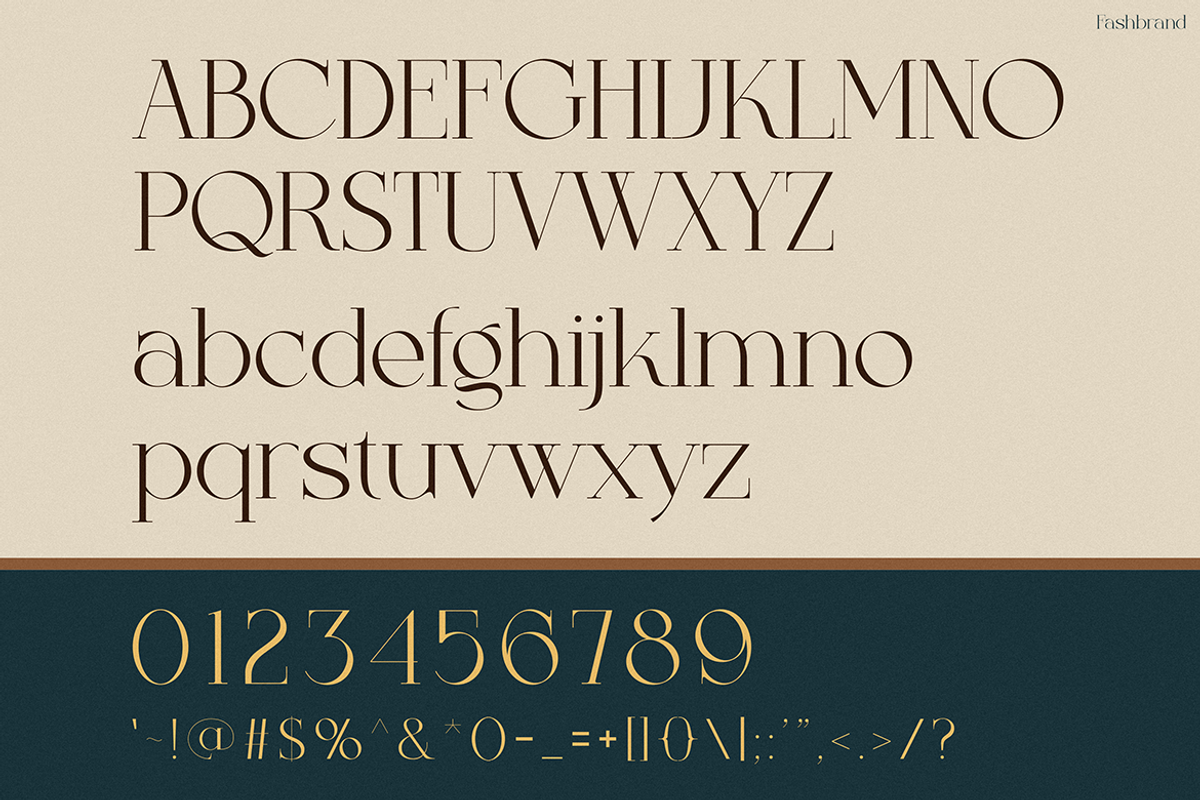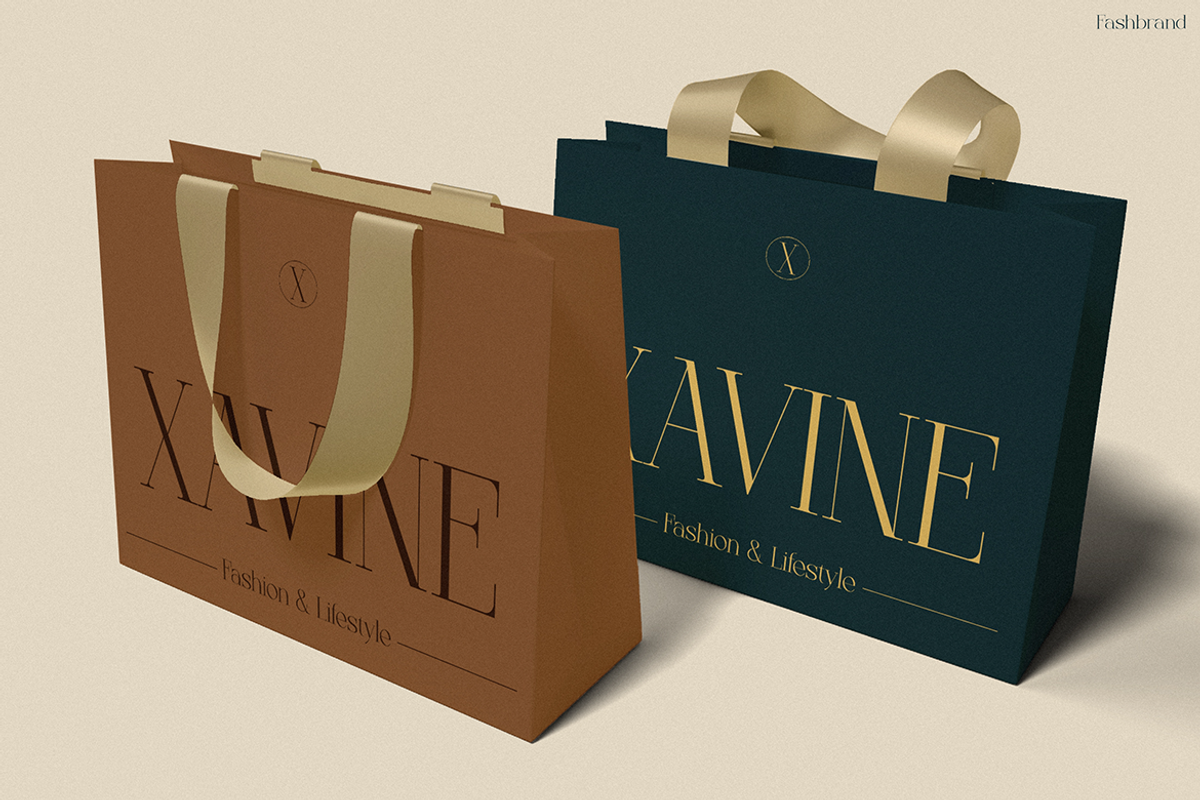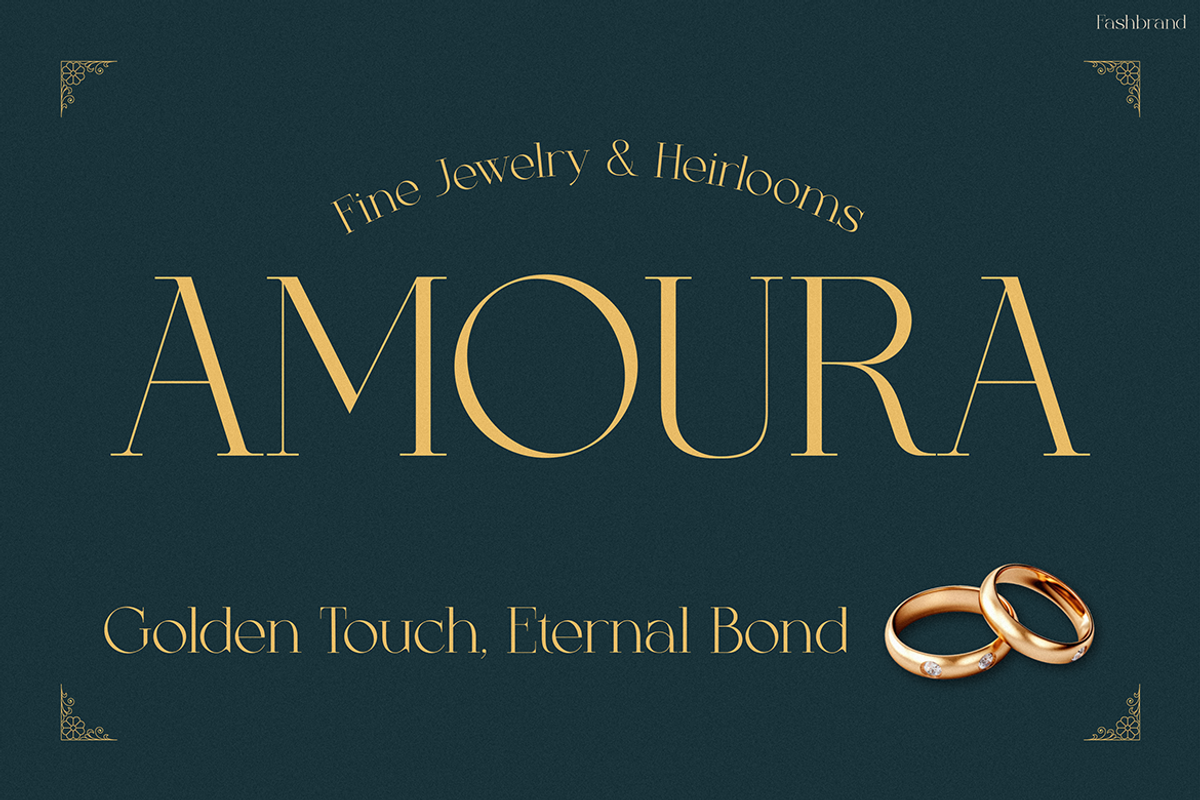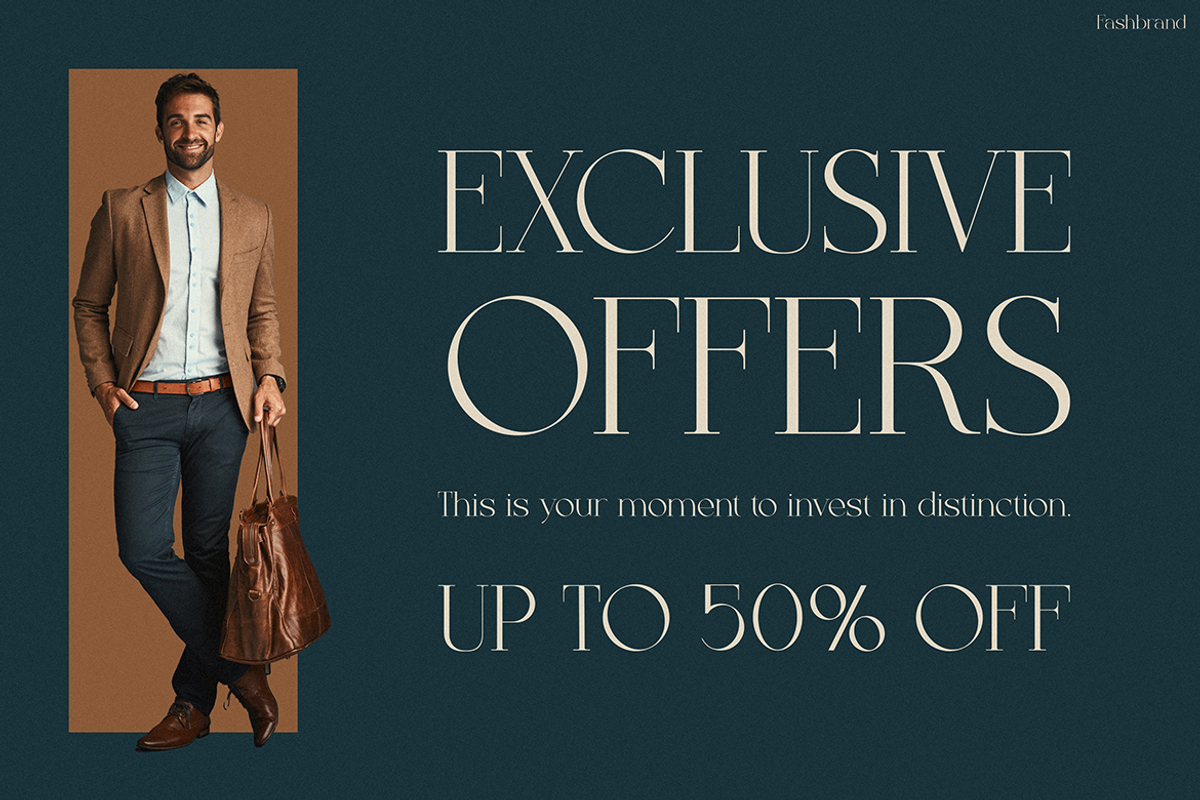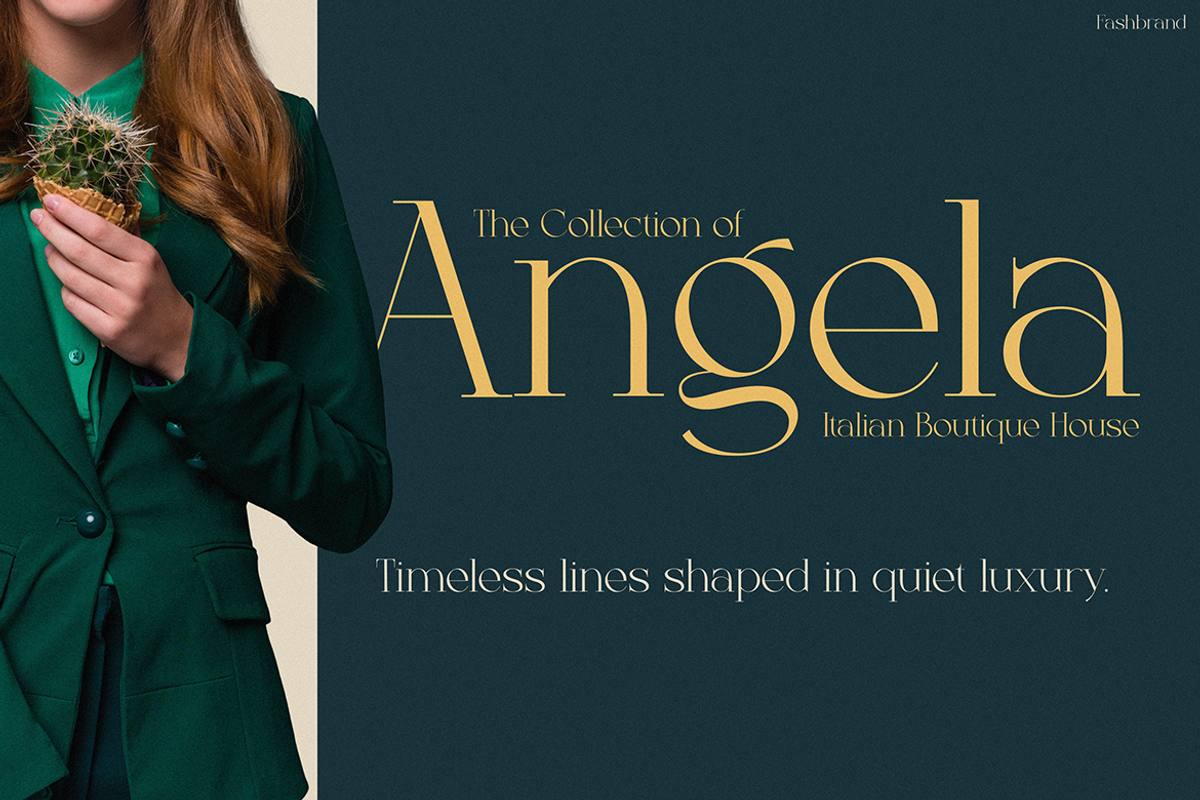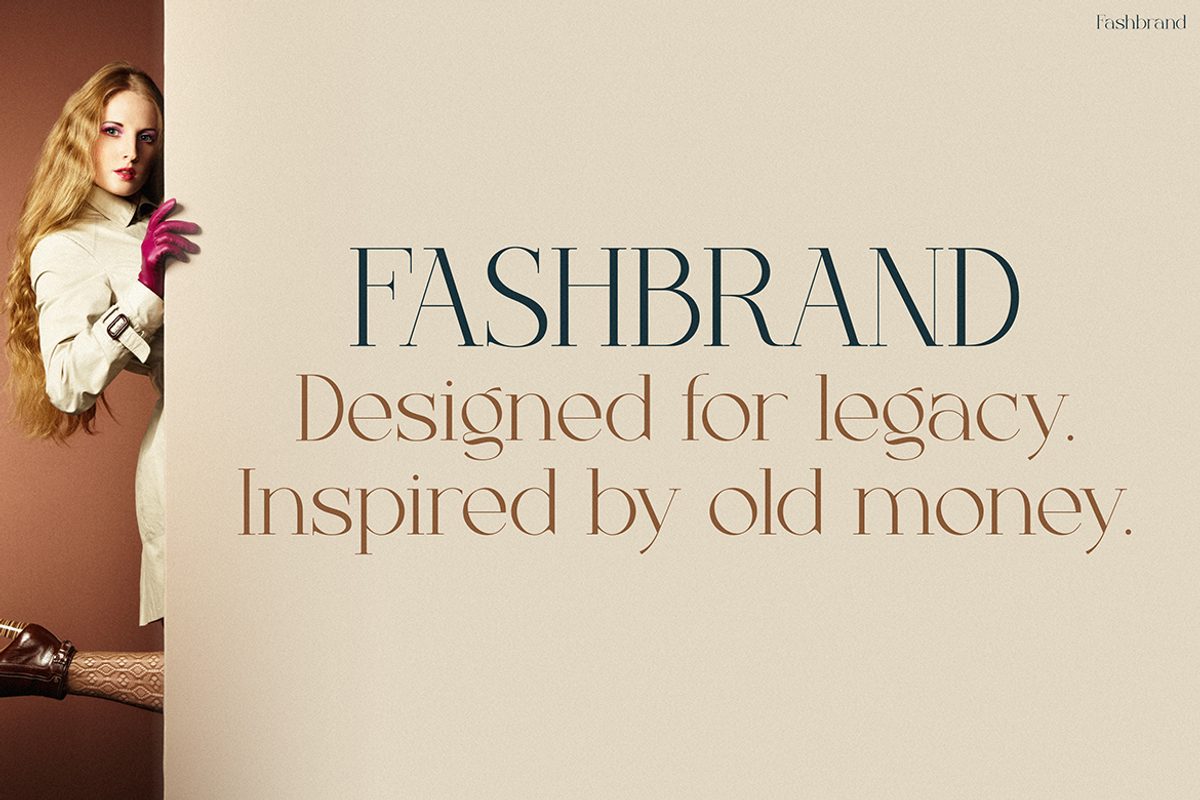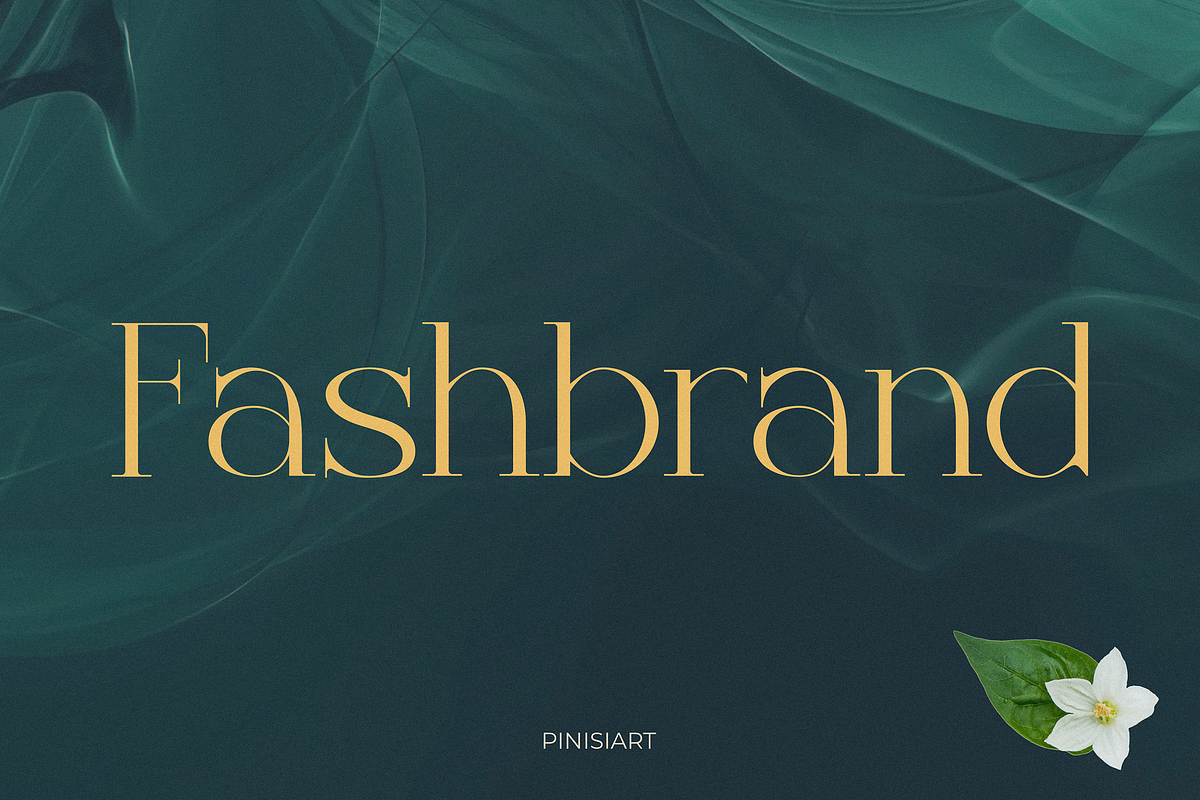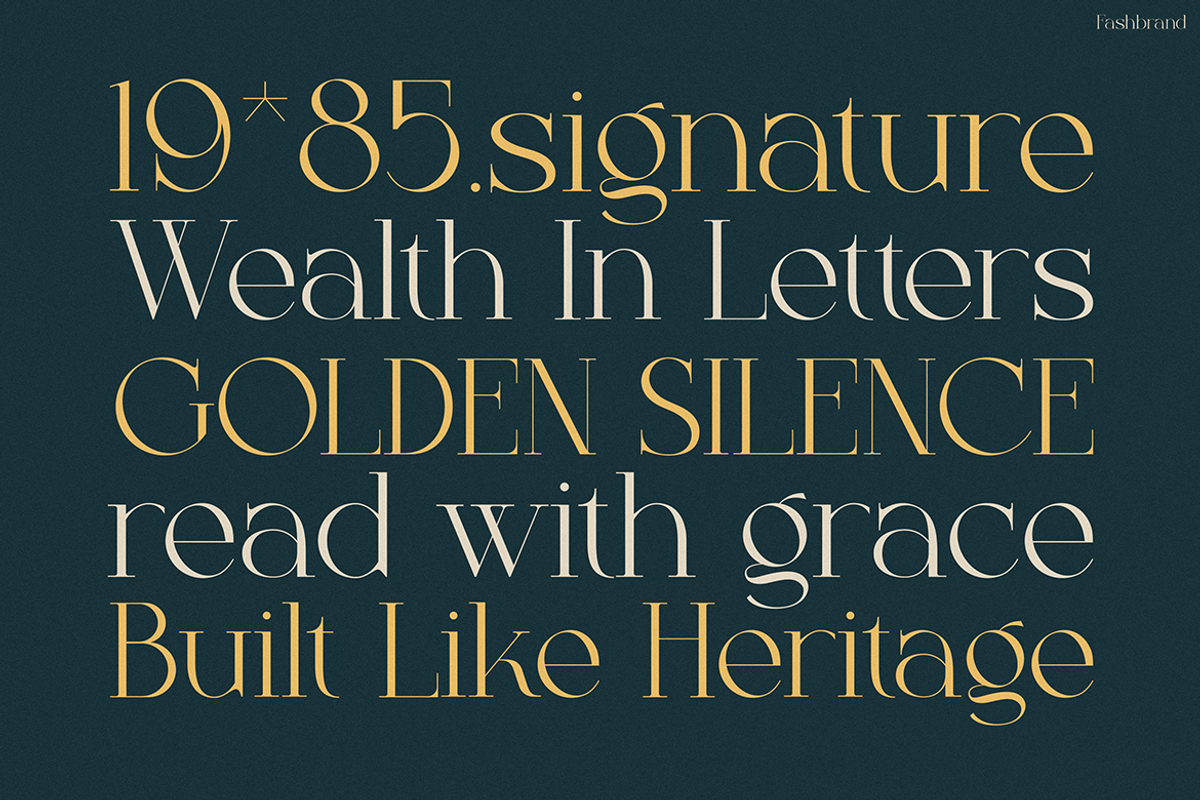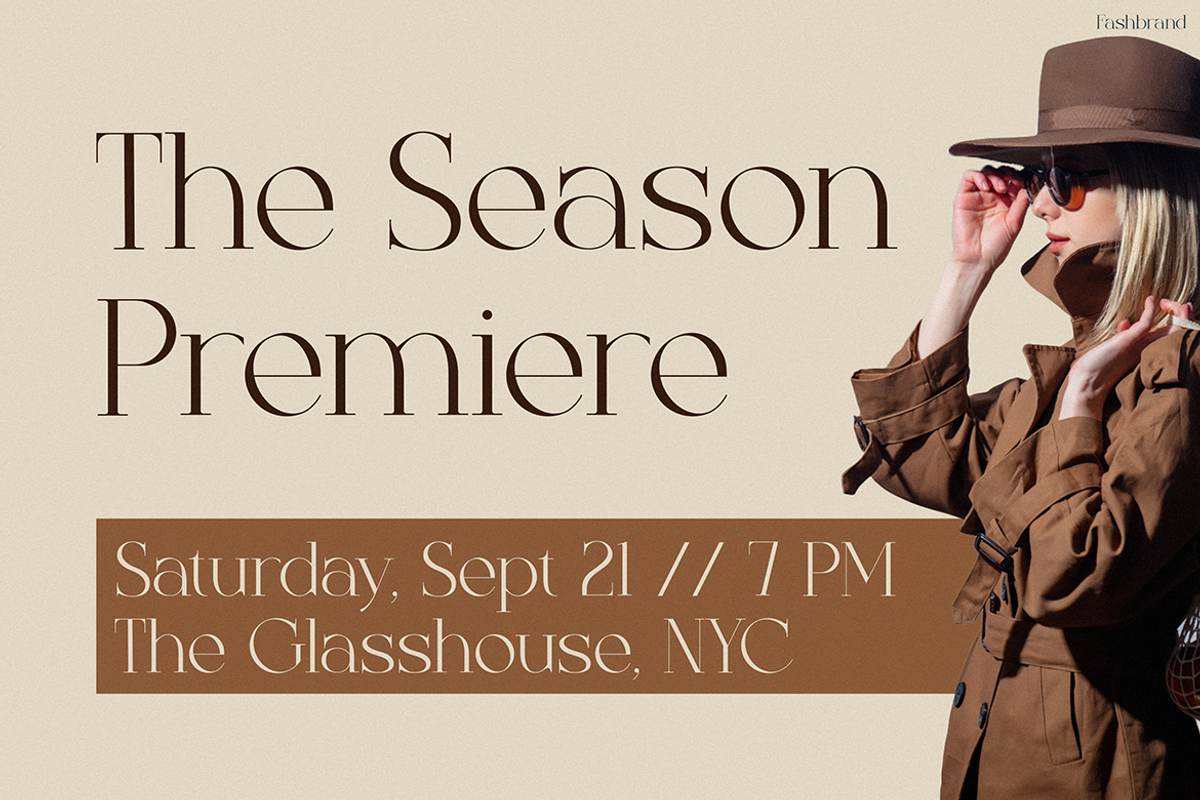
Fashbrand
Instagram Font Fashbrand – Elegant, Luxurious, and Made to Impress
Instagram Font Fashbrand brings instant elegance to any design. With bold vertical strokes and delicate curves, it blends modern minimalism with timeless beauty. As a result, your work gains a polished, high-end feel that commands attention across platforms.
Each letter in Fashbrand features precise detail and smooth structure. While it looks graceful, it also performs well in various formats. From headlines to captions, it remains clear and stylish. Furthermore, its refined ligatures and balanced shapes ensure every word appears intentional and well-crafted.
Unlike typical serif fonts, Fashbrand doesn’t overwhelm your design. Instead, it complements your content with subtle sophistication. Whether used on Instagram, product packaging, or wedding invitations, this font consistently delivers a luxurious, cohesive impression.